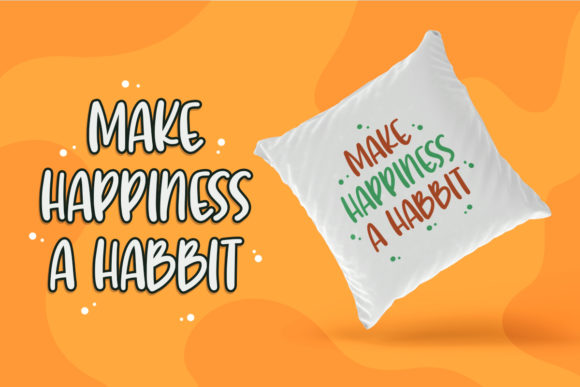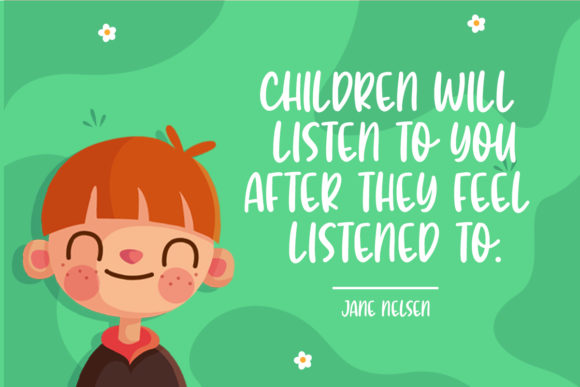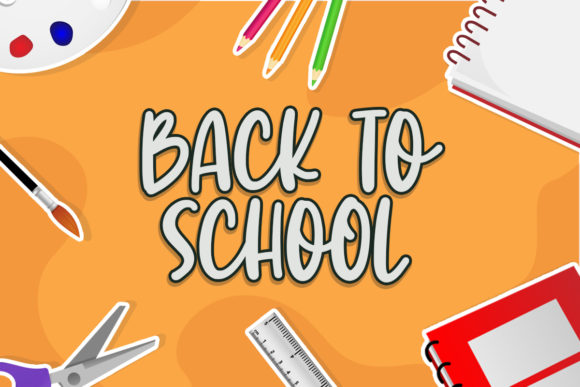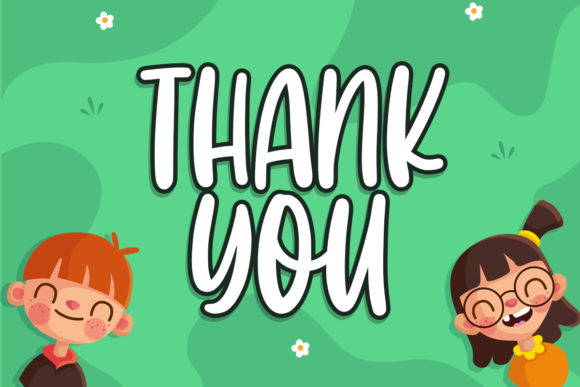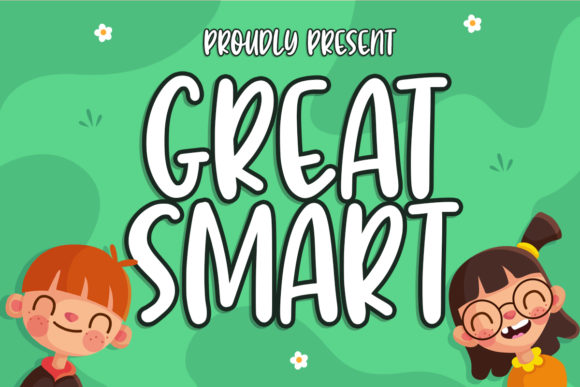
Introducing Great Smart Font: The Ultimate Choice for Creative Projects
Are you tired of using the same old fonts for your creative projects? Look no further than Great Smart Font, a delightful handwritten font that embodies fun, quirkiness, and authenticity. This enchanting font is perfect for designers, crafters, and anyone looking to add a touch of personality to their work.
The Personality of Great Smart Font
Great Smart Font is more than just a font – it’s an experience. Its childlike playfulness and whimsical charm make it perfect for projects that require a dash of creativity and fun. Whether you’re working on a kids’ project, a school assignment, or a craft project, Great Smart Font is sure to bring a smile to your face and inspire your creativity.
Key Features of Great Smart Font
- Handwritten charm: Great Smart Font boasts a beautiful, handwritten aesthetic that’s perfect for adding a personal touch to your projects.
- Childlike playfulness: This font’s playful and carefree vibe makes it ideal for kids’ projects, school assignments, and craft projects.
- Quirky and authentic: Great Smart Font’s unique character and quirky style ensure that your projects will stand out from the crowd.
- Easy to read: Despite its playful nature, Great Smart Font is surprisingly easy to read, making it perfect for both digital and print projects.
Uses for Great Smart Font
Great Smart Font is incredibly versatile, making it suitable for a wide range of projects, including:
- Kids’ projects: Use Great Smart Font to add a touch of whimsy and fun to kids’ school assignments, craft projects, and creative endeavors.
- School assignments: Great Smart Font is perfect for school projects, presentations, and reports that require a dash of personality.
- Craft projects: Add a personal touch to your craft projects, such as handmade cards, gift tags, and scrapbooking pages.
- Digital projects: Use Great Smart Font in digital projects, such as social media graphics, blog posts, and website designs.
Tips for Using Great Smart Font
- Use it sparingly: Great Smart Font is best used sparingly to add emphasis or create visual interest. Use it for headings, titles, or key phrases to create a pop of personality.
- Pair it with other fonts: Experiment with pairing Great Smart Font with other fonts to create a unique and visually appealing combination.
- Experiment with colors: Great Smart Font looks great in a variety of colors, so don’t be afraid to experiment and find the perfect hue for your project.